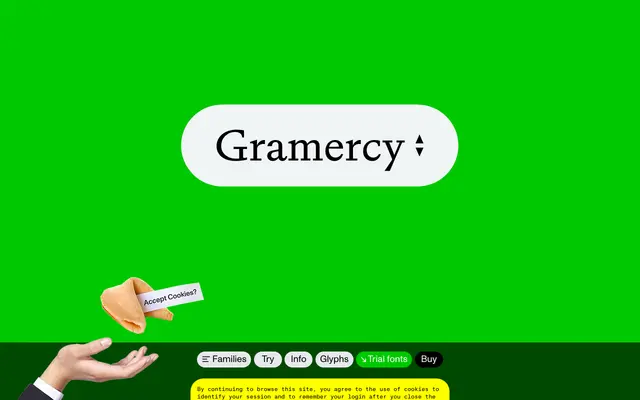
ABC Gramercy
Dinamo Typefaces · Robert Janes · 2024
A 48-style contemporary serif by Robert Janes with three optical sizes, painterly flared strokes and uppercase swashes in every weight.
A contemporary serif by Robert Janes that balances slightly painterly, whimsical forms with sturdiness for editorial use. The system runs to 48 styles across three optical sizes, Standard, Fine and Display, each carrying eight weights from Thin to Super with matching italics and uppercase swashes covering every weight and subfamily. Where another serif might draw ball terminals, Gramercy uses flared strokes, an idea seeded by F.H. Ernst Schneidler's Amalthea (1956), the italic companion to his Schneidler-Mediaeval (1938). Variable axes let designers move from high to low contrast and from Thin to Super.
Dinamo describes Gramercy as an elegant contemporary serif balancing painterly, whimsical forms with functionality and sturdiness, initially informed by F.H. Ernst Schneidler's Amalthea (1956), the italic companion to his Schneidler-Mediaeval (1938), with flared strokes in place of ball terminals.
Optical sizes and widths
textfinedisplay
Gramercy FineGramercy Display